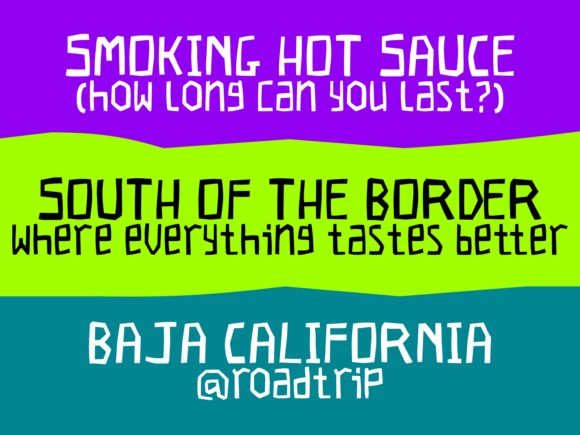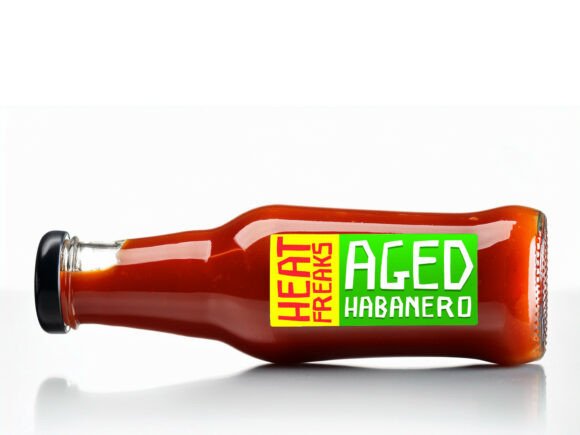
Unleashing the Perfect Dose of Quirk
There’s something special about discovering a new font that sparks your creativity. For designers, it’s like stumbling upon a hidden treasure that breathes new life into your projects. You know that feeling when you see a font that’s a perfect match for your brand’s personality? That’s exactly what the Chile Con Queso Font aims to provide.
This charming geometric sans-serif font is the perfect blend of clean and quirky, making it an excellent addition to any design project. With its irregular blocky proportions and sharp terminals, Chile Con Queso Font adds a touch of authenticity and human touch to your work, ensuring your message remains legible and engaging.
Whether you’re working on social media headers, children’s book titles, or artisanal product labels, the Chile Con Queso Font is sure to bring a unique and upbeat energy to your designs.
Chile Con Queso Font Key Features
- Font Family: Chile Con Queso
- Font Styles: Regular, Italic, Bold, Bold Italic
- Unique Characteristics: This font features a unique blend of Latin and Mexican typography, with a warm and inviting tone, making it perfect for use in Mexican and Latin American-inspired designs.
Chile Con Queso Font Review
At first glance, the Chile Con Queso font is a visually appealing choice for a project. ✨ Its unique blend of Mexican-inspired flair and playful touch can add a delightful personality to any design. The font’s bold, chunky lines and vibrant color scheme can grab attention and make a statement.
However, there are some limitations to consider. ⚠️ One of the main drawbacks is that the font may be too bold and overpowering for some designs. This can be overwhelming, especially when used in large quantities. Additionally, the font’s lack of versatility makes it difficult to use in various contexts, such as in formal or professional settings.
- Unique blend of Mexican-inspired flair and playful touch
- Bold, chunky lines
- Vibrant color scheme
- Perfect for casual or informal designs
- May be too bold and overpowering for some designs
- Lack of versatility
- May not be suitable for formal or professional settings
Overall, the Chile Con Queso font is a fun and playful choice for the right project. While it may not be the best option for every design, it can be a great addition to a project that requires a bold and eye-catching font.
Tips for Getting the Most Out of the Chile Con Queso Font
1. Use the Chile Con Queso font for titles and headings to add a touch of whimsy and personality.
2. Combine the Chile Con Queso font with other fonts to create a unique and eclectic look.
3. Experiment with different font sizes, colors, and styles to achieve the desired effect.
1. Menu boards and restaurant signage.
2. Food and drink branding.
3. Social media graphics and advertisements.
Alternatives to Chile Con Queso Font for Designers
Yes, the Chile Con Queso font can be used in a logo or branding identity, but it is recommended to use it in conjunction with a more legible font for body text. The font’s bold, energetic feel makes it well-suited for use in logos, but it may not be the best choice for large blocks of text.